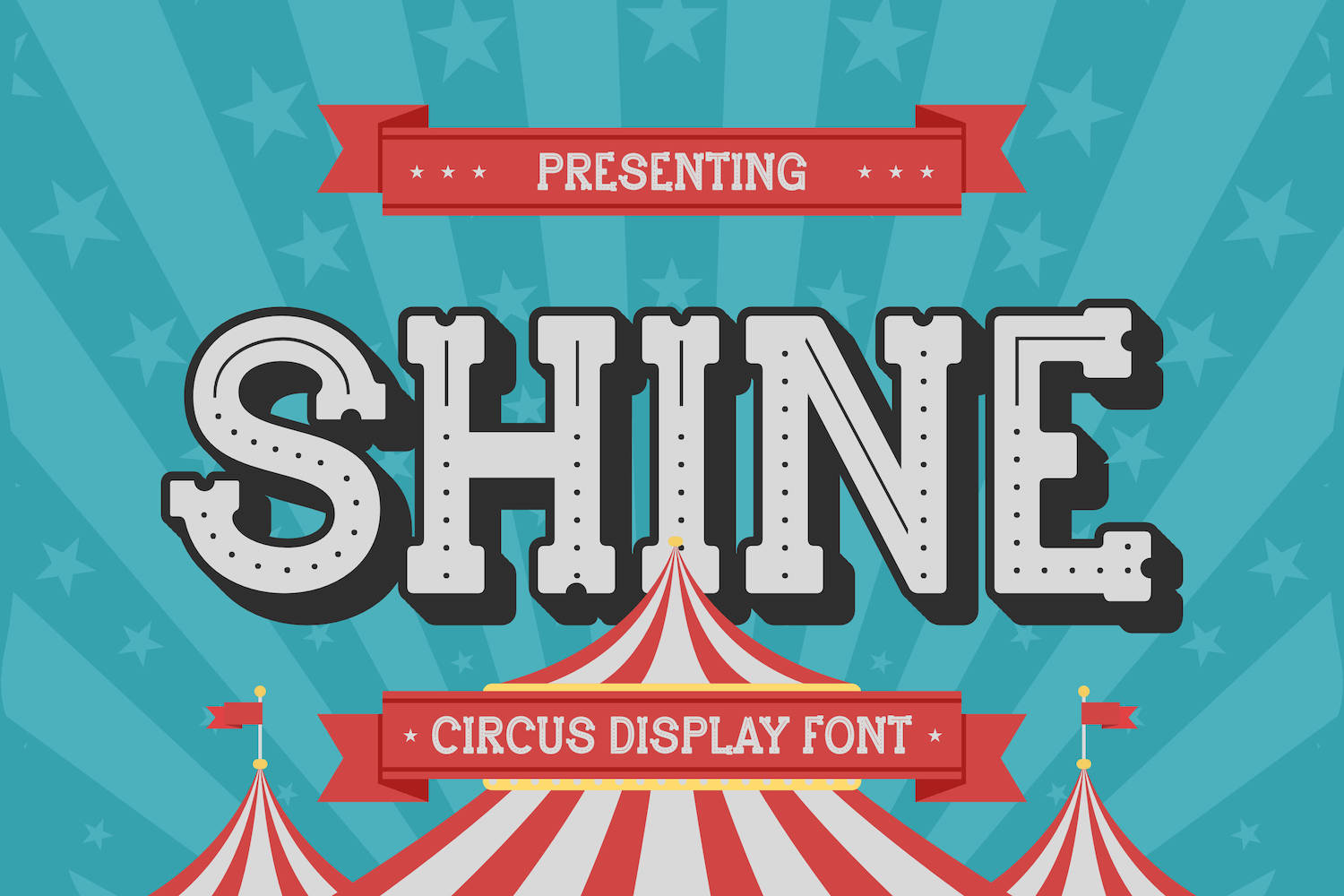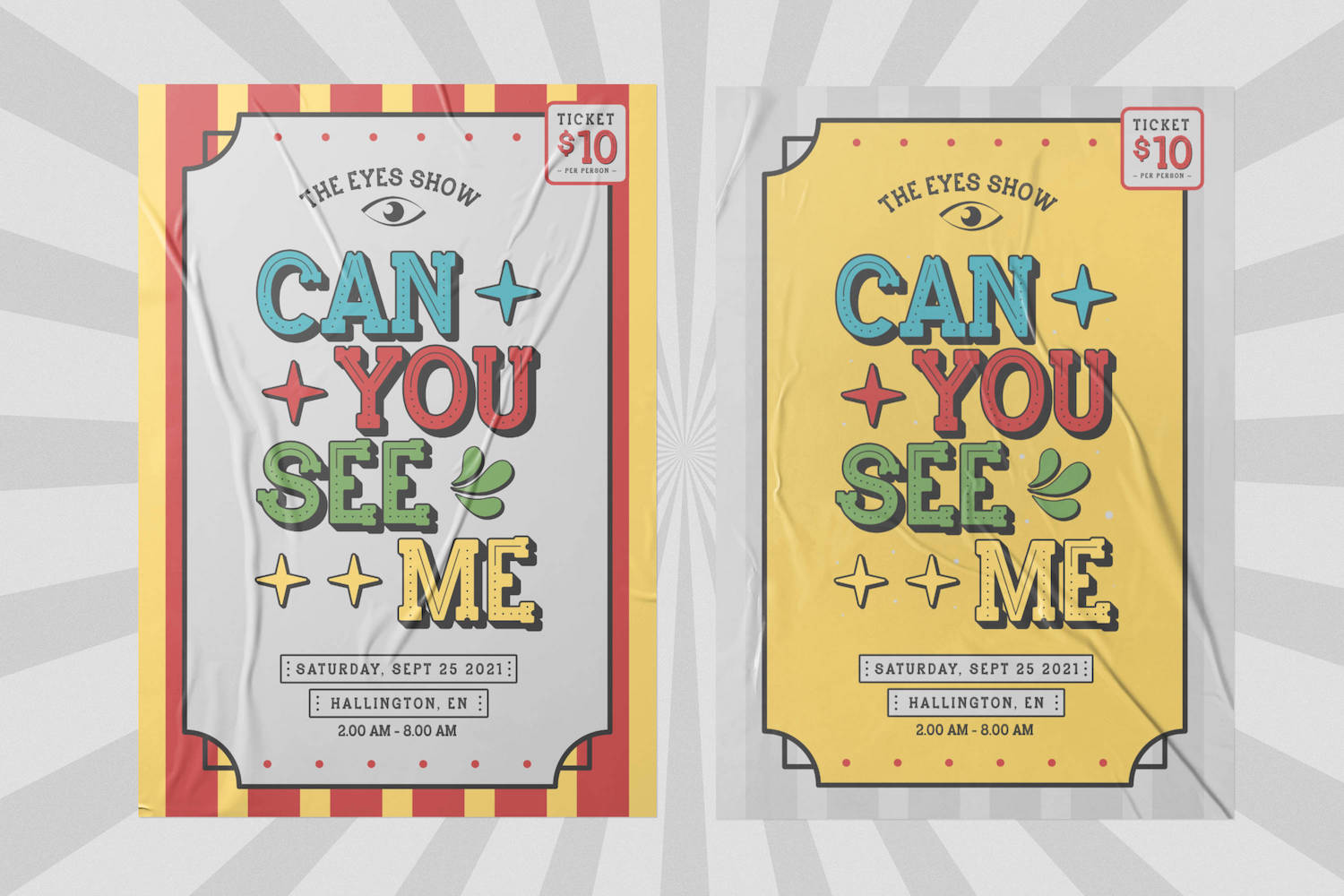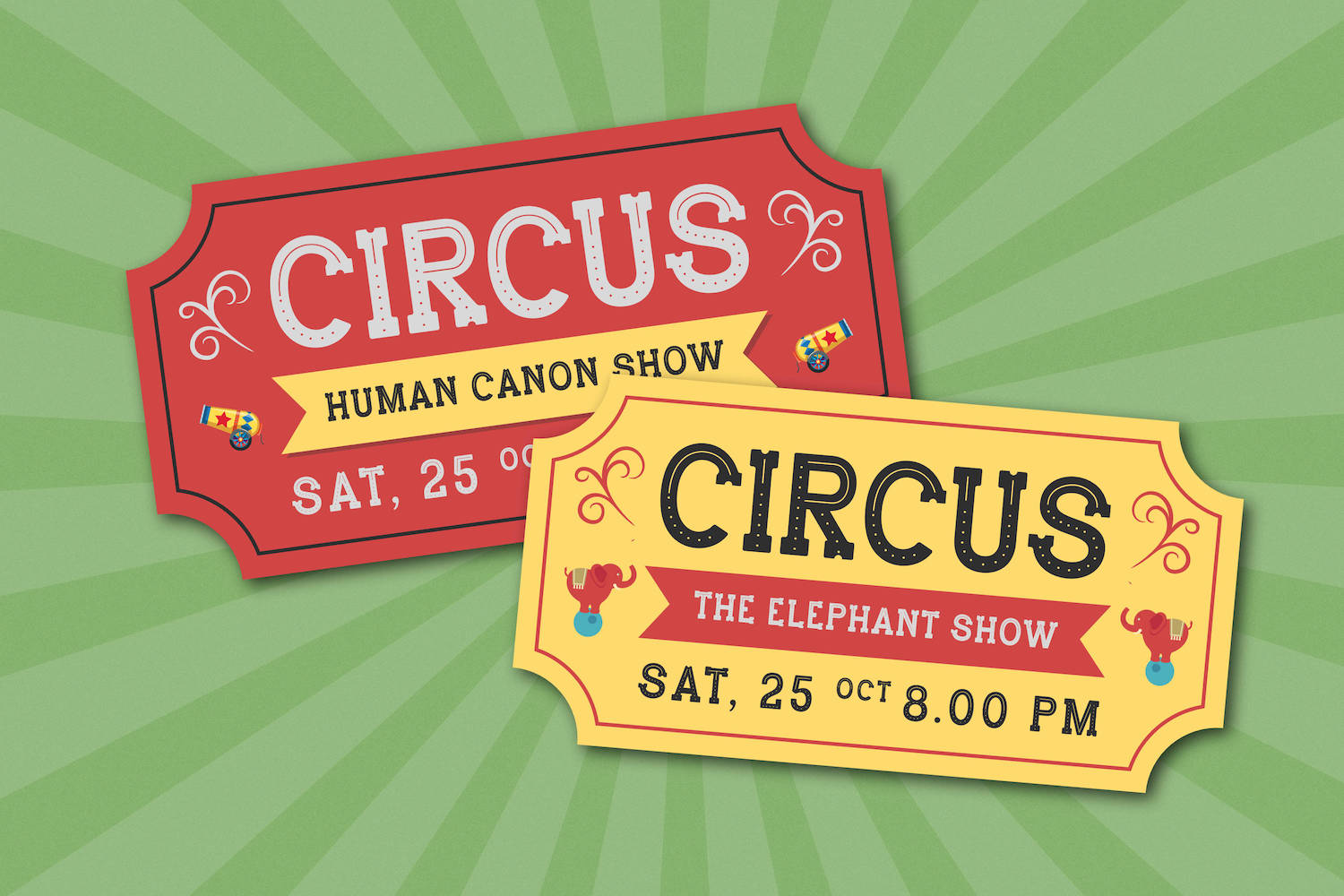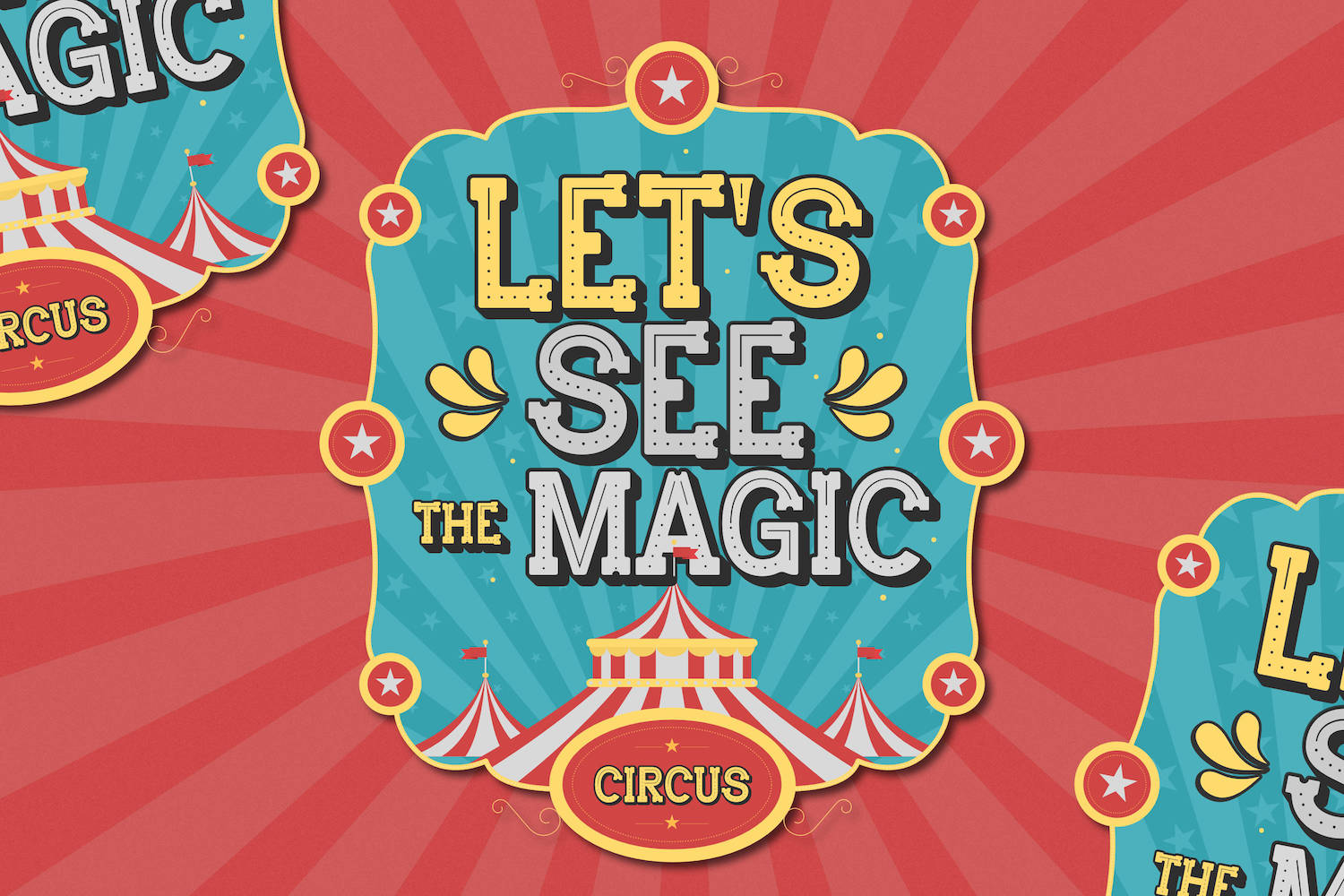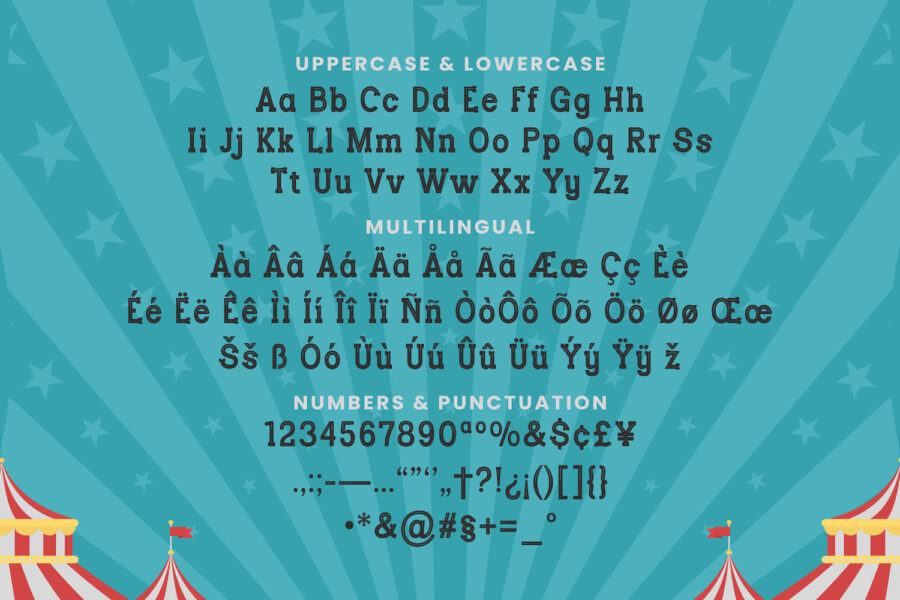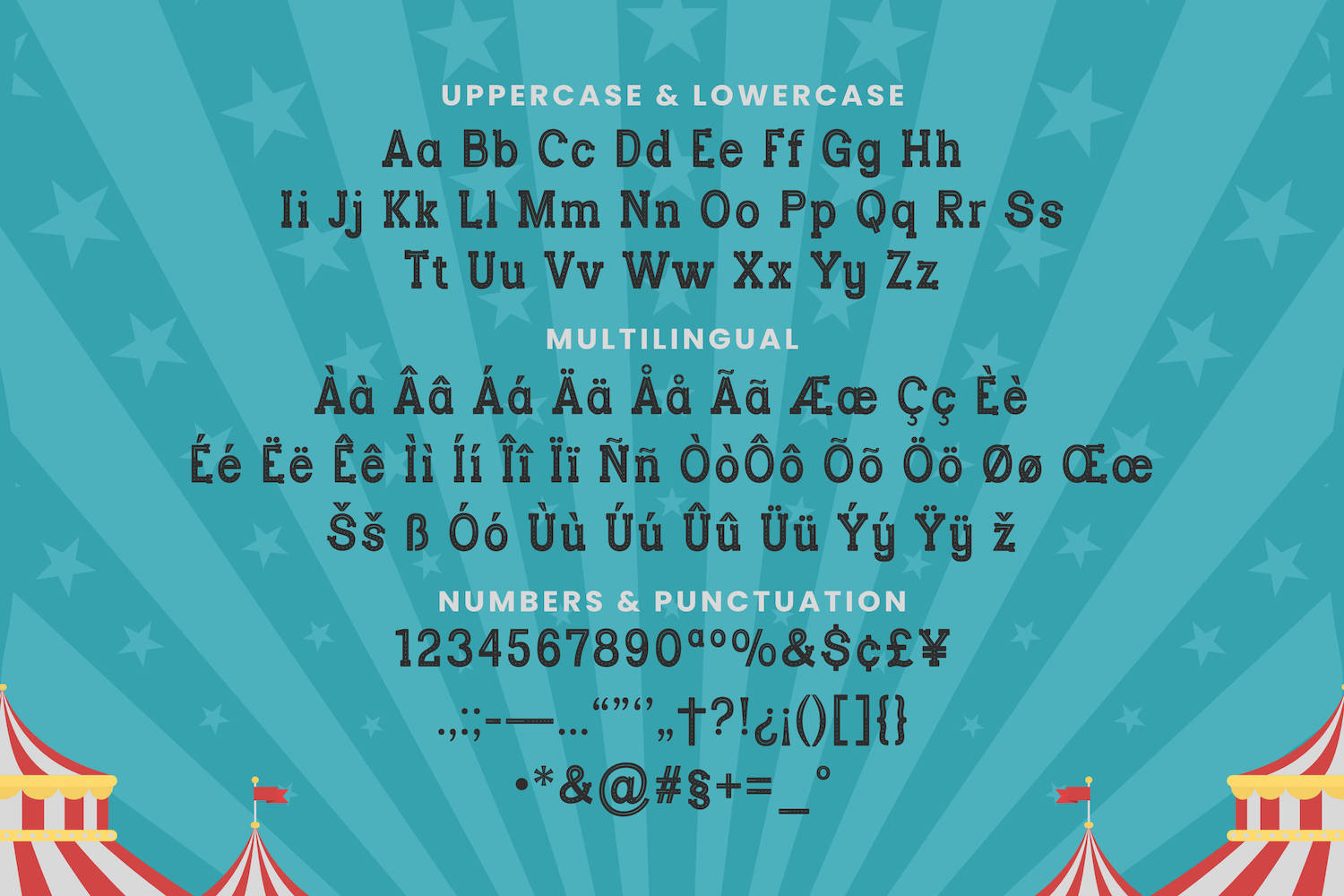
Shine is a cheerful and playful circus display font designed to bring the magic of carnival and vintage fairgrounds to your creative projects. Its bold letterforms are accentuated with dotted details and strong outlines, creating a vibrant and energetic aesthetic ideal for children’s events, party invitations, signage, or nostalgic branding. Shine radiates a fun, lively, and dynamic personality that instantly grabs attention while remaining easy to read.
With its full uppercase and lowercase set, multilingual characters, and a wide range of punctuation, Shine is a flexible typeface that supports both creative and commercial use. Whether you’re crafting a poster for a kids’ magic show or designing retro-styled merchandise, Shine delivers a playful visual punch that turns any headline into a spectacle.